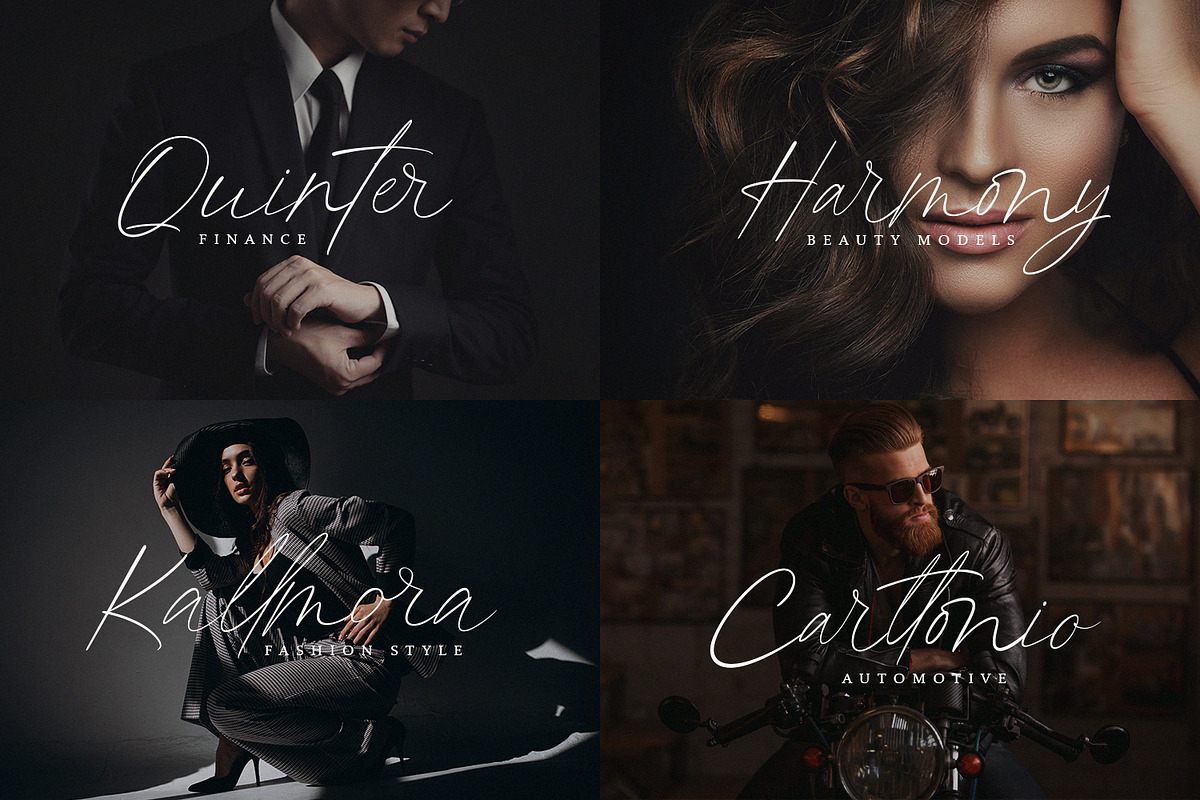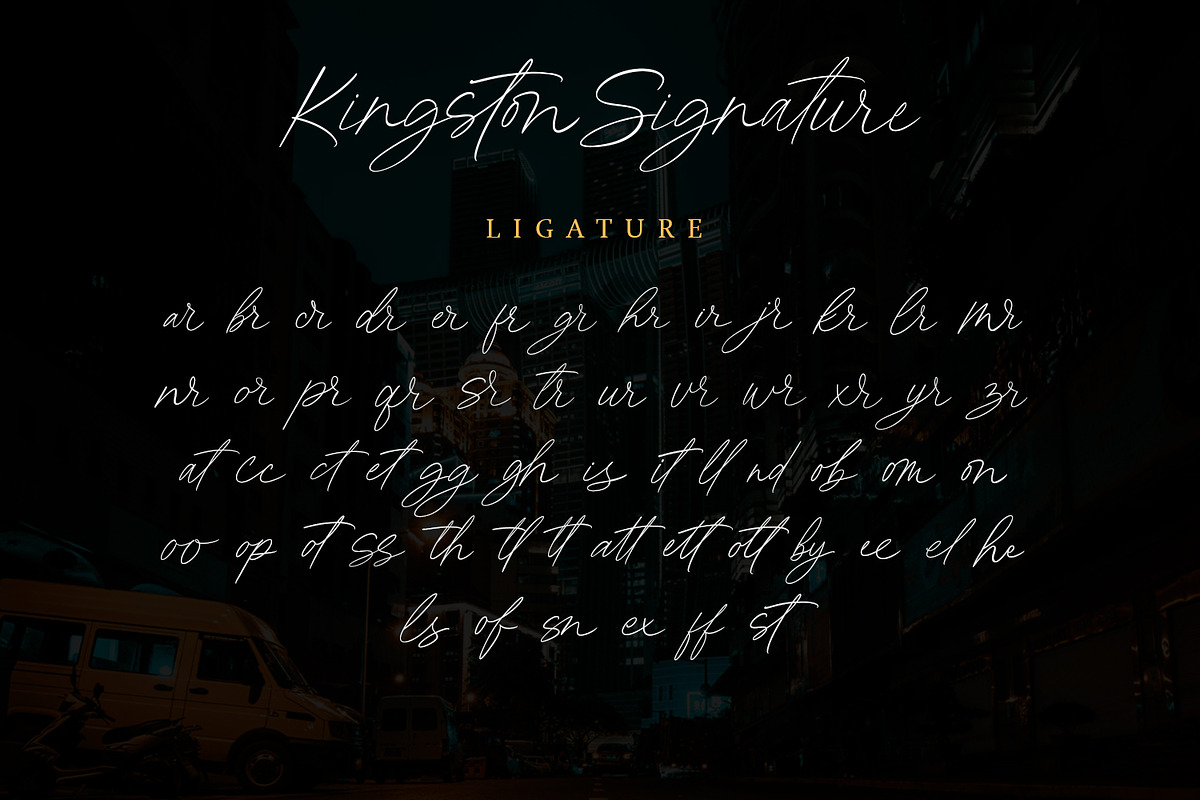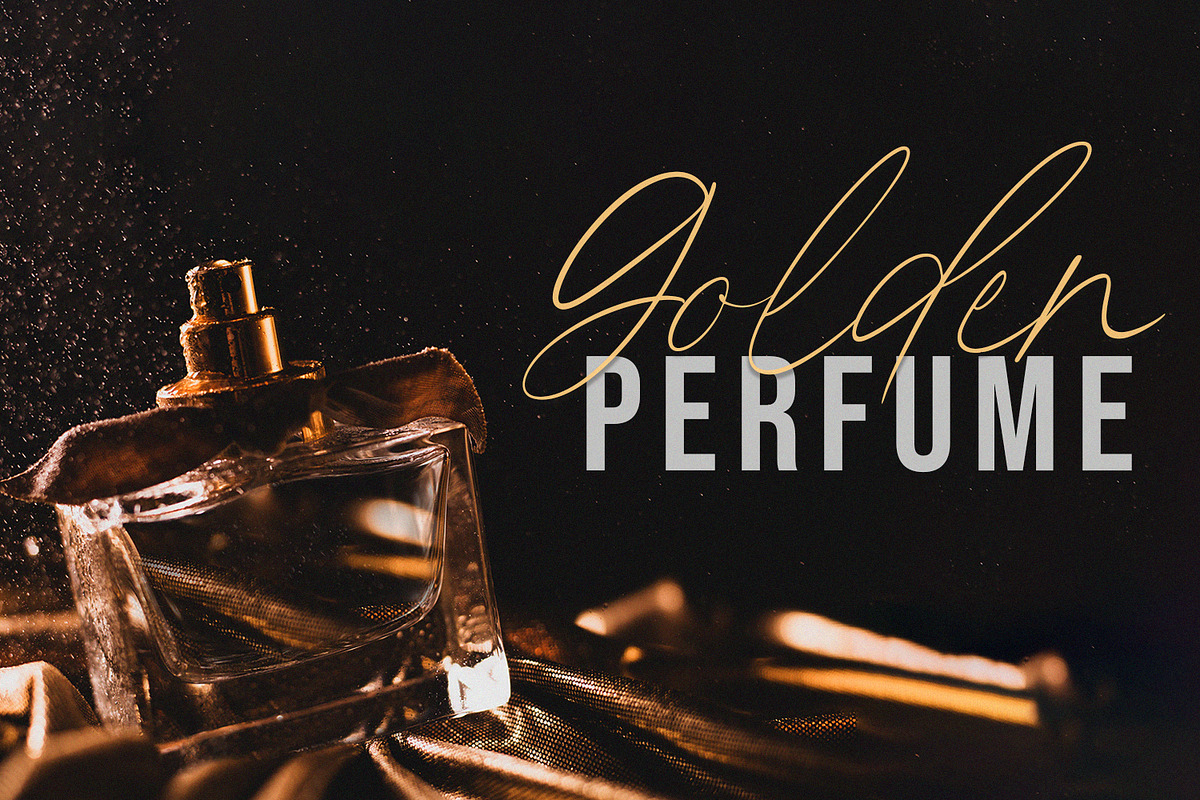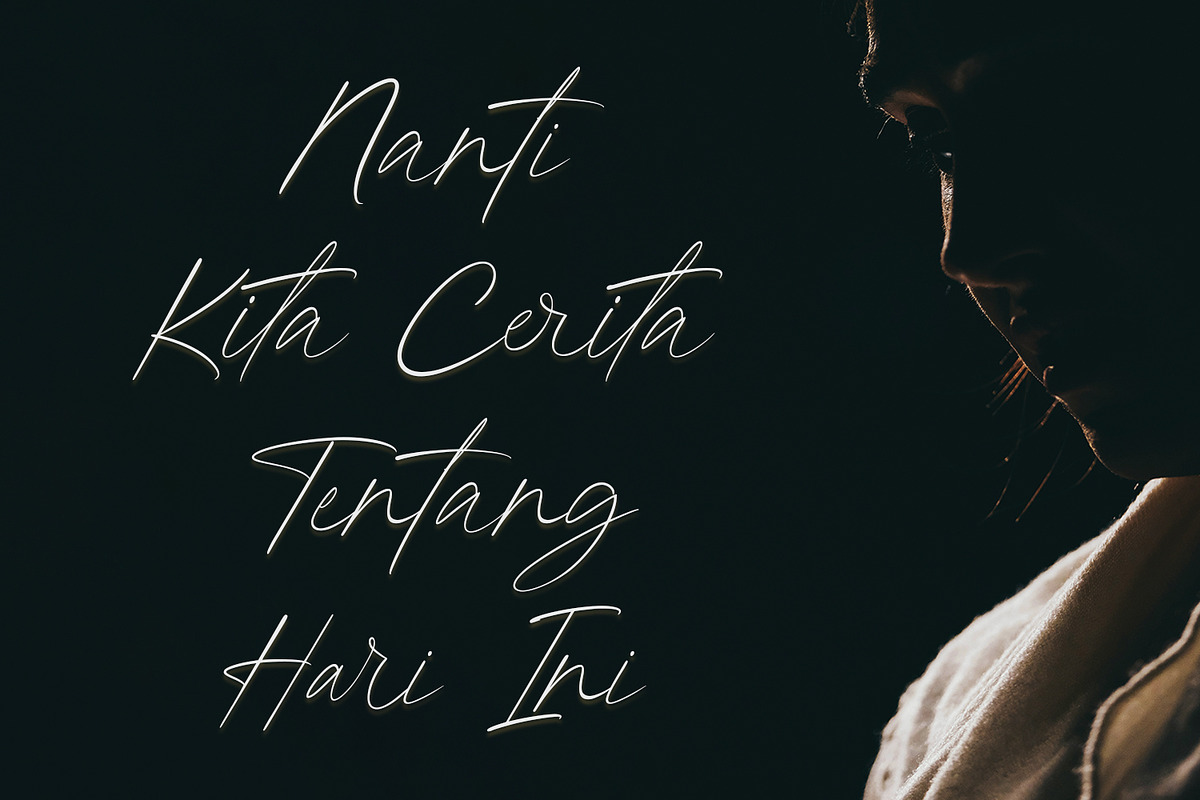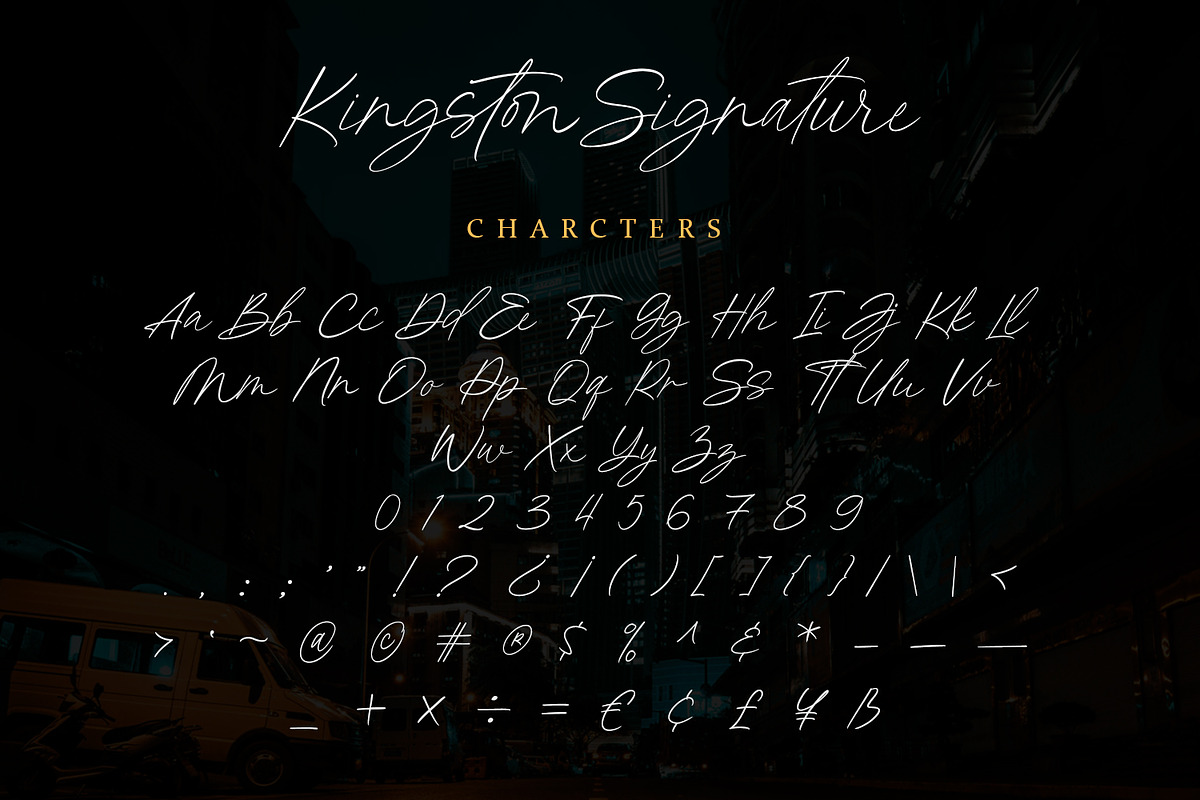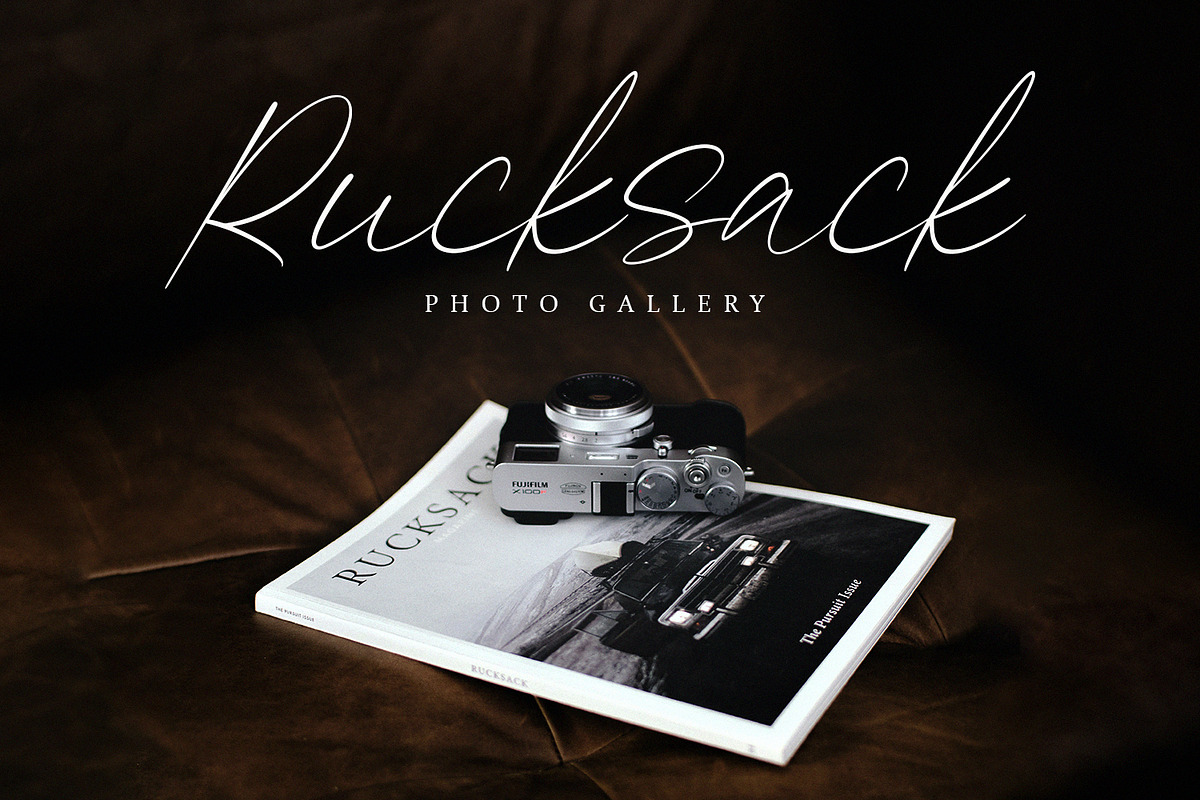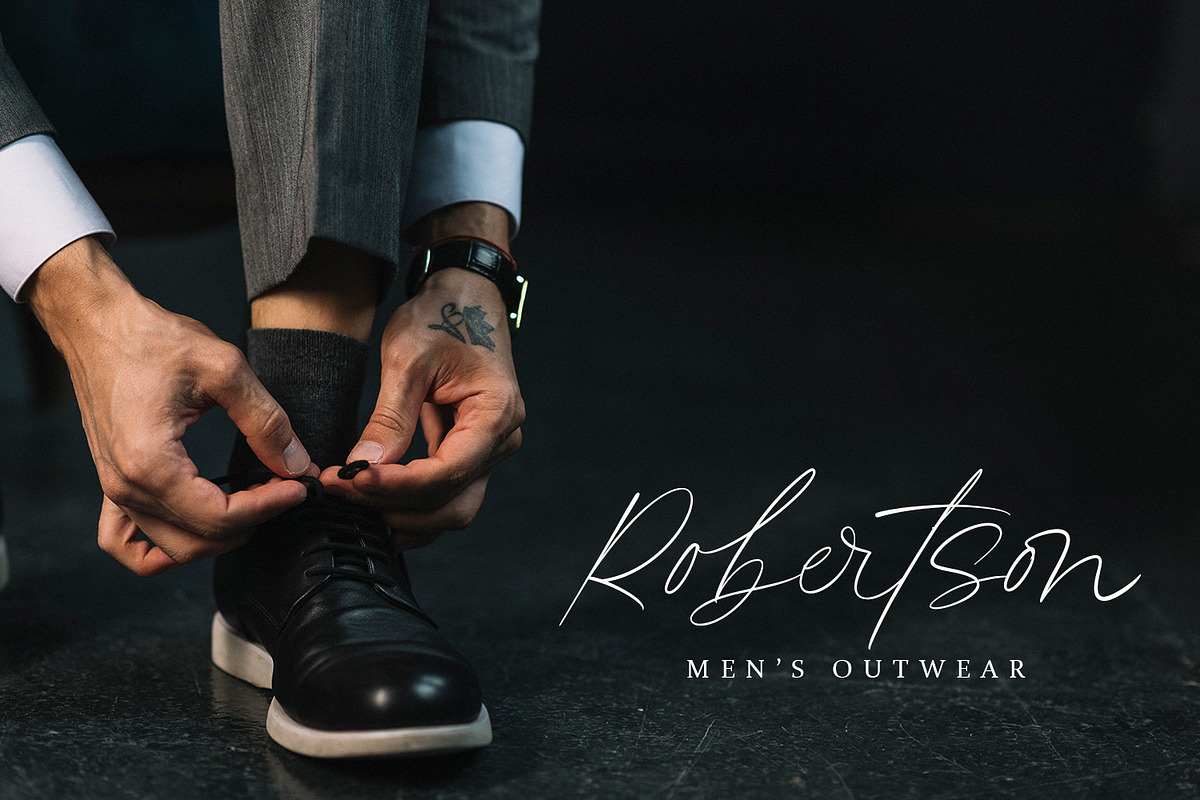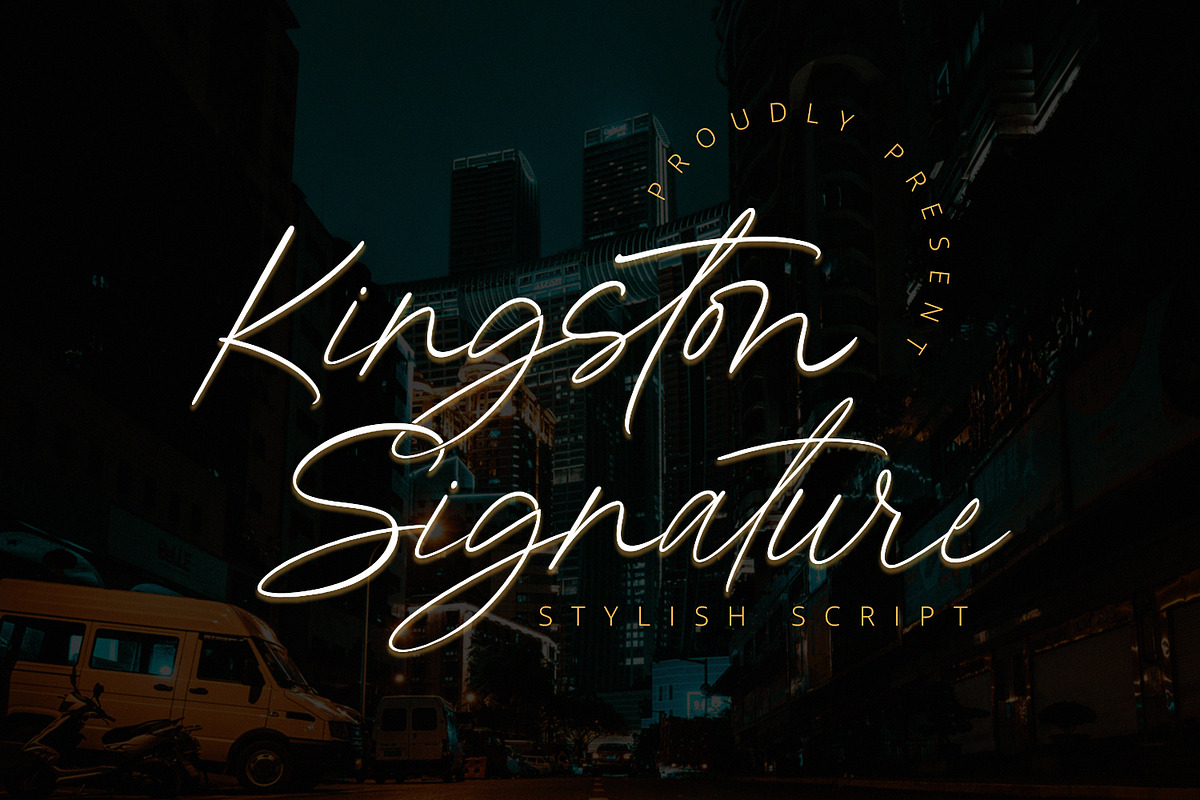
Kingston Signature - Stylish Script
Kingston Signature is a stunning signature script font with authentic and casual feels. It will be perfectly used for Branding, Logo Design, Lettering, Logotype, Clothing, Poster, magazine, packaging, posters, shopping bags, t-shirts, book covers, photography, special events and other design project.